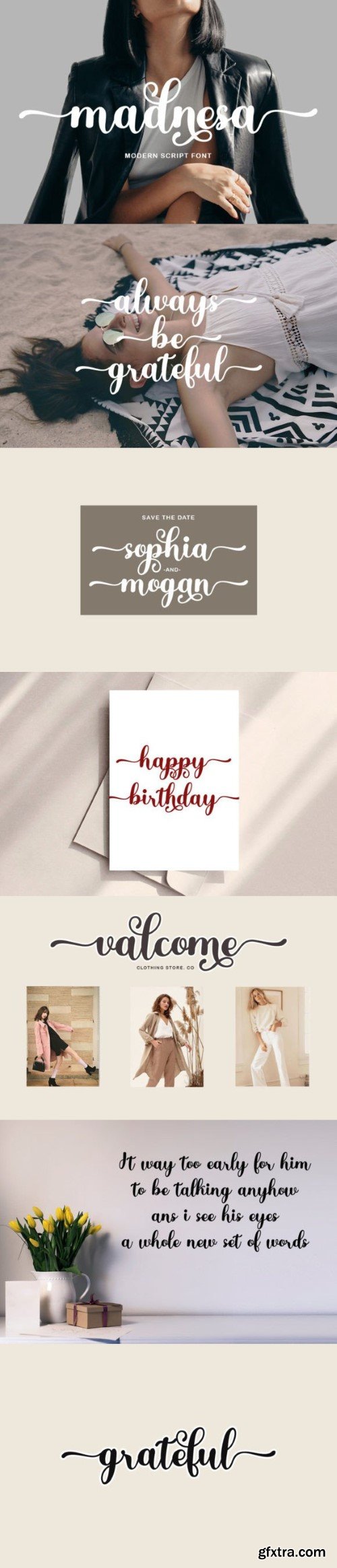
马德纳字体
Madnesa is a stylish and incredibly beauty handwritten font. It looks stunning on wedding invitations, thank you cards, quotes, greeting cards, logos, business cards, and every other design which needs a handwritten touch.